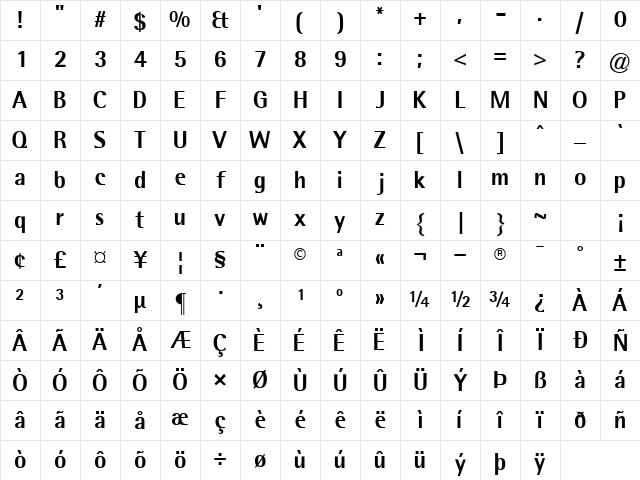
LibreSemiSans Regular
Design Context for LibreSemiSans
LibreSemiSans is a composed and adaptable typeface that performs quietly and consistently across a wide range of design contexts.
Pro Tip: Use LibreSemiSans in both headline and body roles to test its range before committing to a single application.